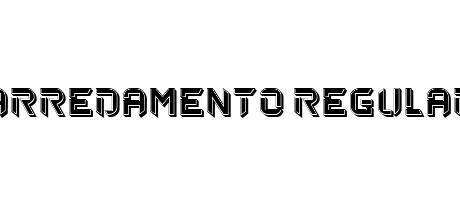
Arredamento
Arredamento Regular is a bold, geometric sans-serif typeface. Its letters are structured with sharp, angular edges and a distinct double-lined outline, giving it a strong, almost metallic or mechanical feel. The consistent weight and spacing create a clean, highly readable, yet aggressive and modern look.